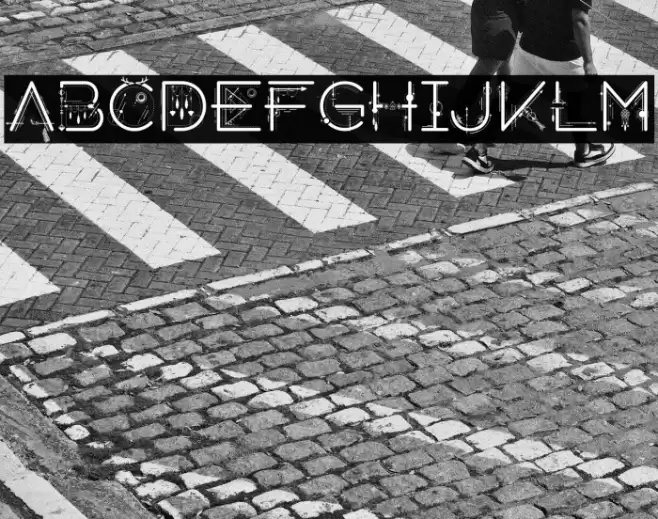
House Decor Demo Regular Font
House Decor Demo Regular Description
This font features a unique decorative style with intricate details and embellishments that give each letter a distinct personality. The uppercase letters are adorned with various geometric shapes, lines, and symbols, creating a whimsical and artistic appearance. The design elements are integrated into the letterforms, making it ideal for creative and eye-catching projects. The font maintains a consistent structure while allowing for playful variations in each character, making it suitable for use in design contexts that require a touch of creativity and flair.
A decorative font with intricate details and artistic embellishments from Dingbats fonts.
- Font: House Decor Demo Regular
- Proposed Projects: Ideal for artistic posters, creative branding, unique invitations, and decorative signage.
- Use Case: Logos, Headlines, Posters